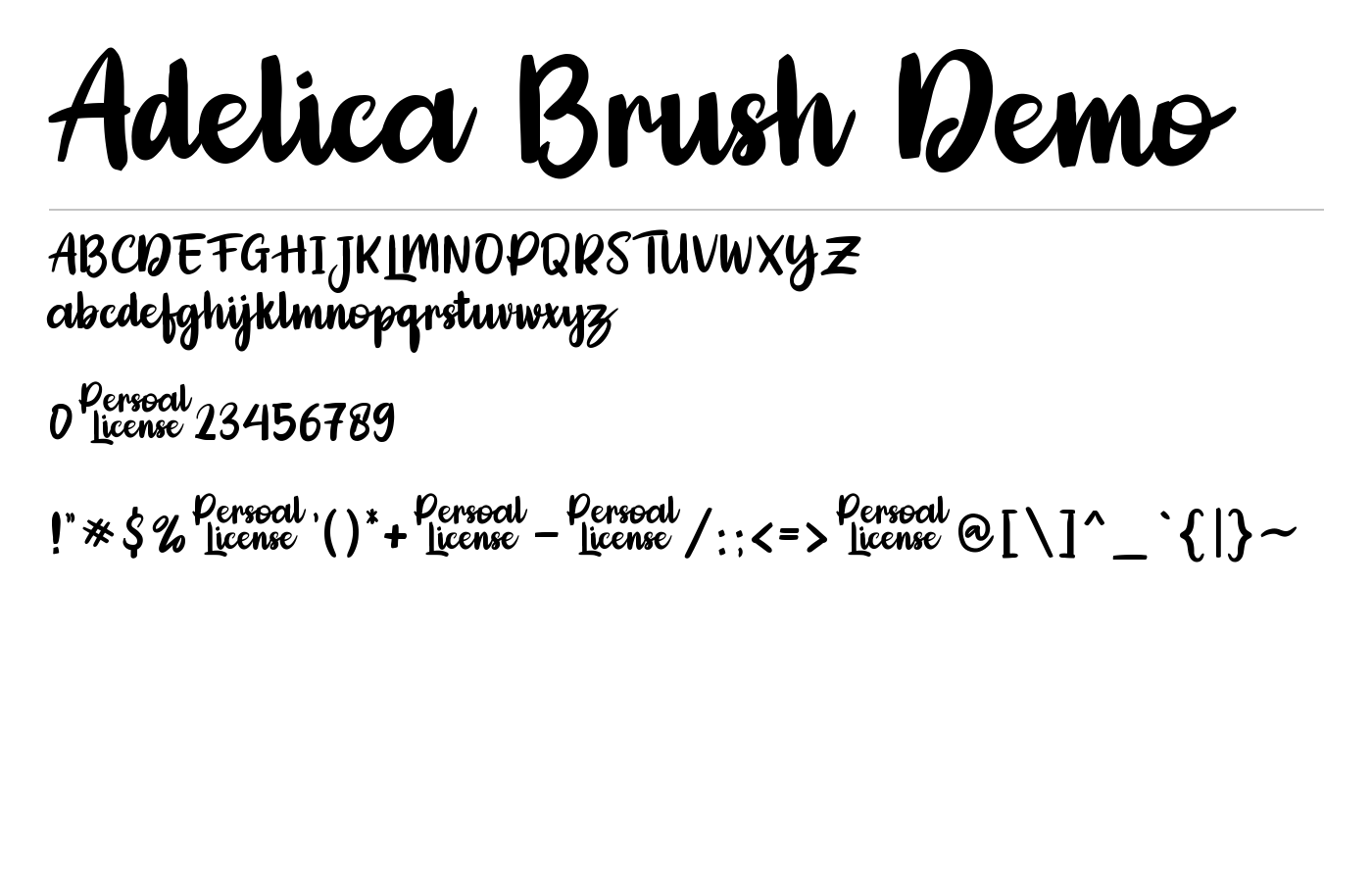
Adelica Brush Demo is a lively and expressive brush script font characterized by its smooth, flowing strokes and casual, handwritten feel. Its medium weight with natural stroke variations gives it an approachable, artistic personality, making it ideal for creative projects, branding, and invitations where warmth and individuality are key. This font works best in headlines and display uses, adding a personal and dynamic touch to designs.
Adelica Brush Demo Font
About Adelica Brush Demo Font